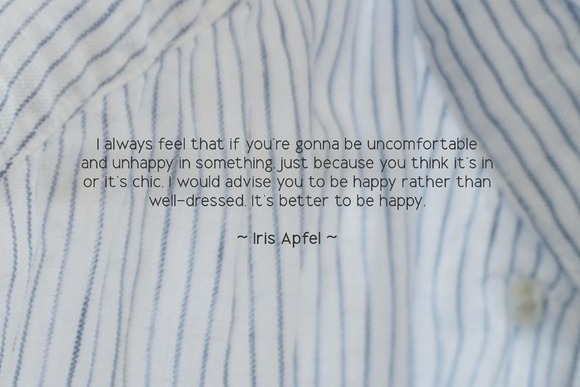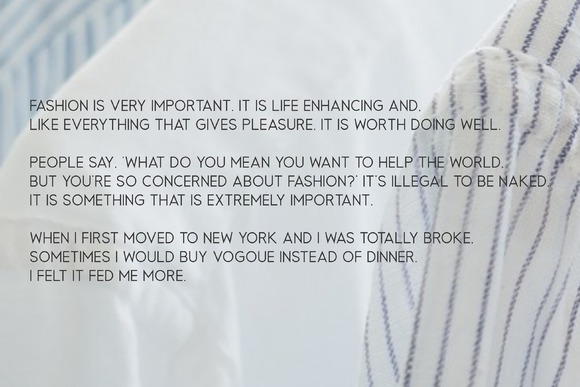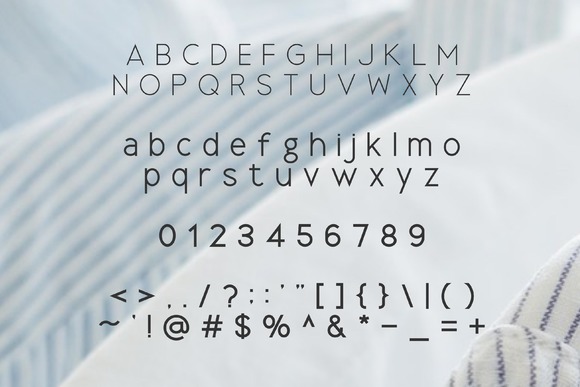
Introducing Dotcom Font: The Ultimate Clean Sans Serif Typeface
In the world of typography, a good font can make all the difference in the success of a design project. For designers and crafters, finding the perfect typeface that conveys the right message and aesthetic can be a daunting task. That’s where Dotcom Font comes in – a clean sans serif typeface that is sure to elevate your designs to the next level.
Clean and Minimalist Character
Dotcom Font boasts a clean and minimalist character that is perfect for designers who want to create a modern and sleek look. Its sans serif design ensures that the text is easy to read, making it ideal for body text, headings, and titles. The font’s simplicity also allows it to work well with a variety of design elements, from simple icons to complex graphics.
Three Different Weights for Versatility
One of the standout features of Dotcom Font is that it comes in three different weights: light, regular, and bold. This versatility allows designers to use the font in a range of applications, from subtle background text to attention-grabbing headlines. The different weights also enable designers to create visual hierarchy and emphasis, adding depth and dimension to their designs.
Perfect for Various Designs
Dotcom Font’s clean and minimalist design makes it perfect for a wide range of design applications, including:
- Digital products: Dotcom Font is ideal for digital products, such as ebooks, tutorials, and software documentation, where clear and readable text is essential.
- Branding and logos: The font’s simplicity and versatility make it perfect for creating modern and sleek logos that work well in various formats.
- Web design: Dotcom Font is optimized for web use, with a clean and legible design that works well on various devices and screen sizes.
- Print materials: The font’s crisp and clean lines make it suitable for print materials, such as brochures, flyers, and business cards.
Why Choose Dotcom Font?
With so many fonts available, why choose Dotcom Font? Here are just a few reasons:
- Legibility: Dotcom Font is designed to be easy to read, even at small sizes.
- Versatility: The font’s three different weights and clean design make it suitable for a wide range of applications.
- Modern aesthetic: Dotcom Font’s minimalist design ensures that your designs look modern and sleek.
Tips for Using Dotcom Font
Here are a few tips for getting the most out of Dotcom Font:
- Use the light weight for subtle text: The light weight is perfect for background text or subtle labels.
- Use the bold weight for emphasis: The bold weight is ideal for headings, titles, and attention-grabbing text.
- Experiment with font sizes: Dotcom Font works well at a range of font sizes, from small body text to large headings.
In conclusion, Dotcom Font is a versatile and modern sans serif typeface that is perfect for designers and crafters looking for a clean and minimalist aesthetic. With its three different weights and clean design, it’s suitable for a wide range of applications, from digital products to print materials. Whether you’re creating a website, logo, or print material, Dotcom Font is a great choice for adding a touch of modernity and sophistication to your designs.